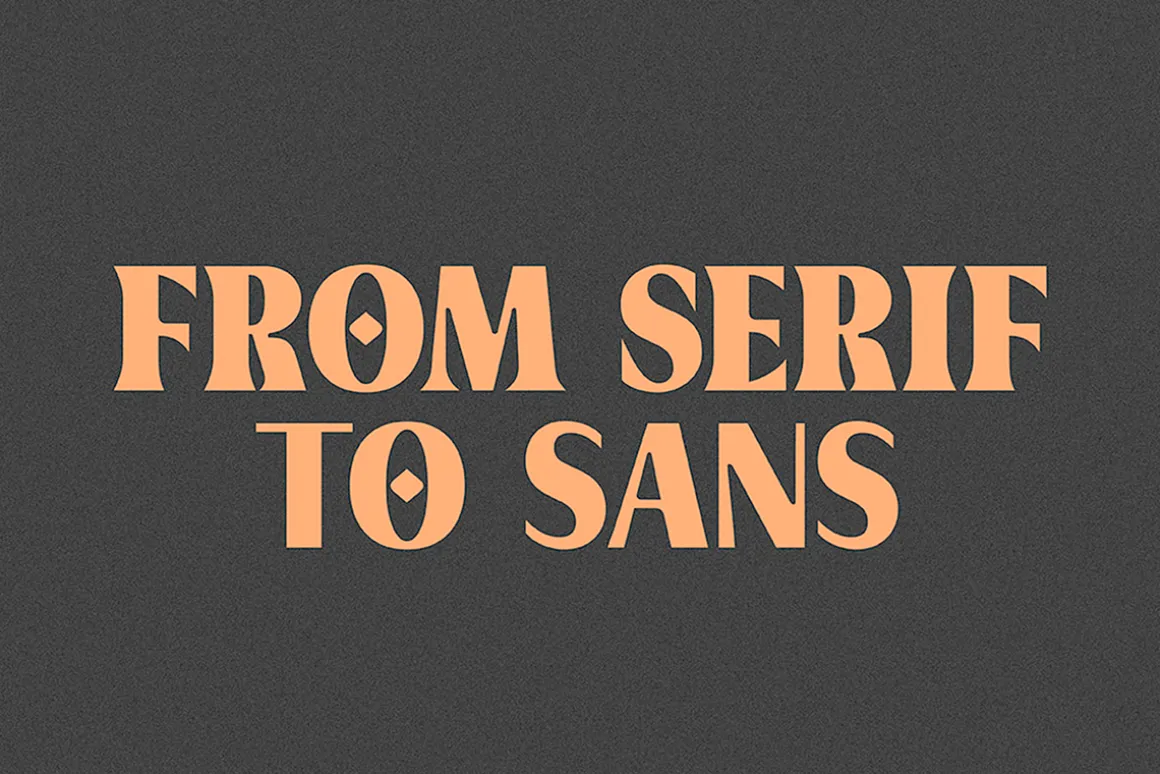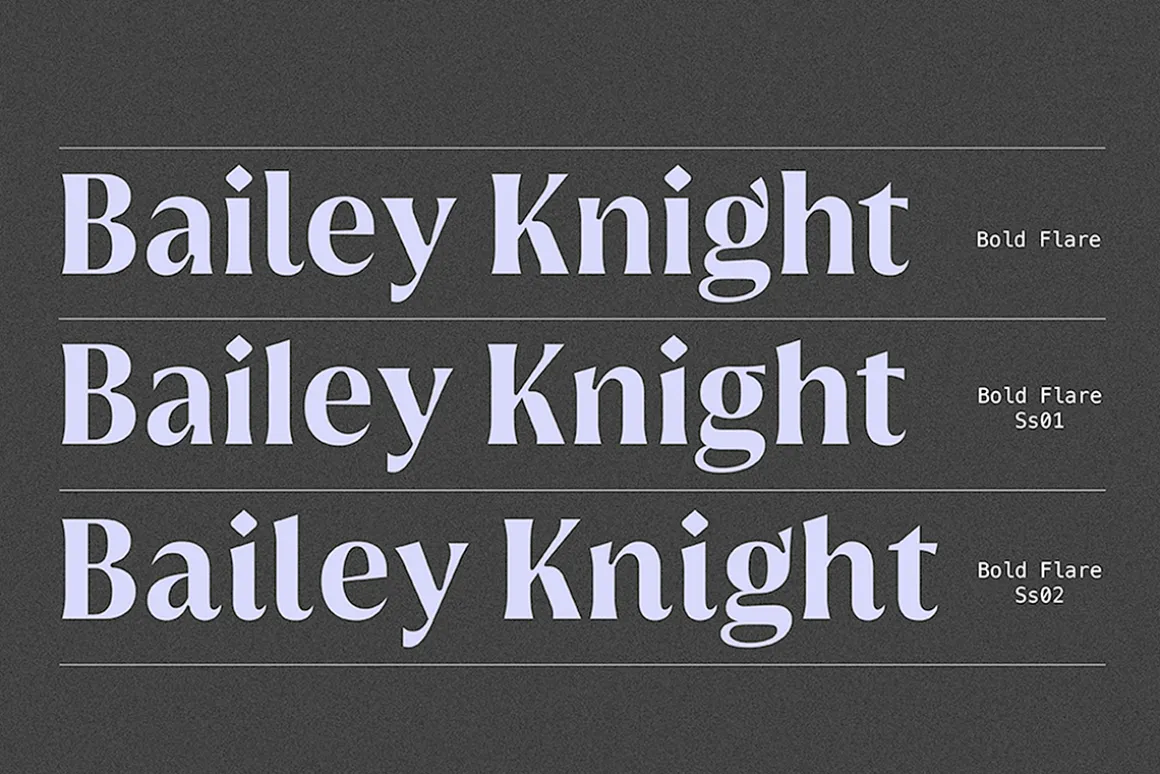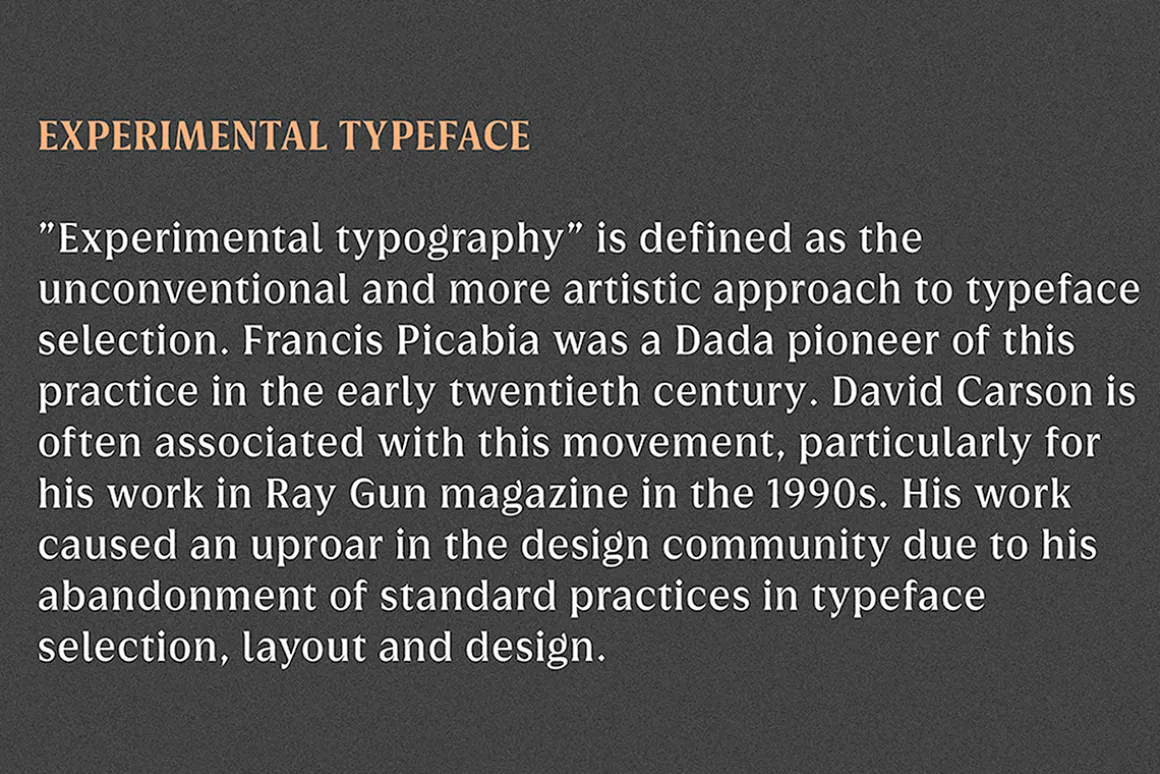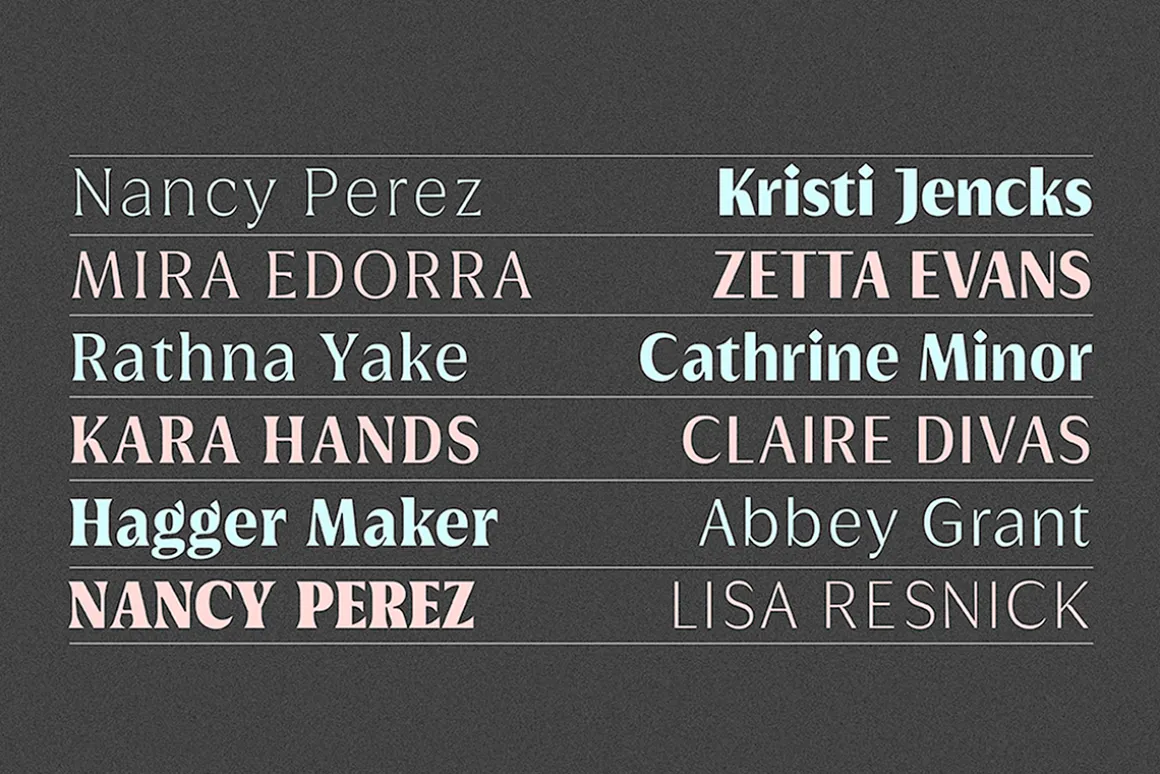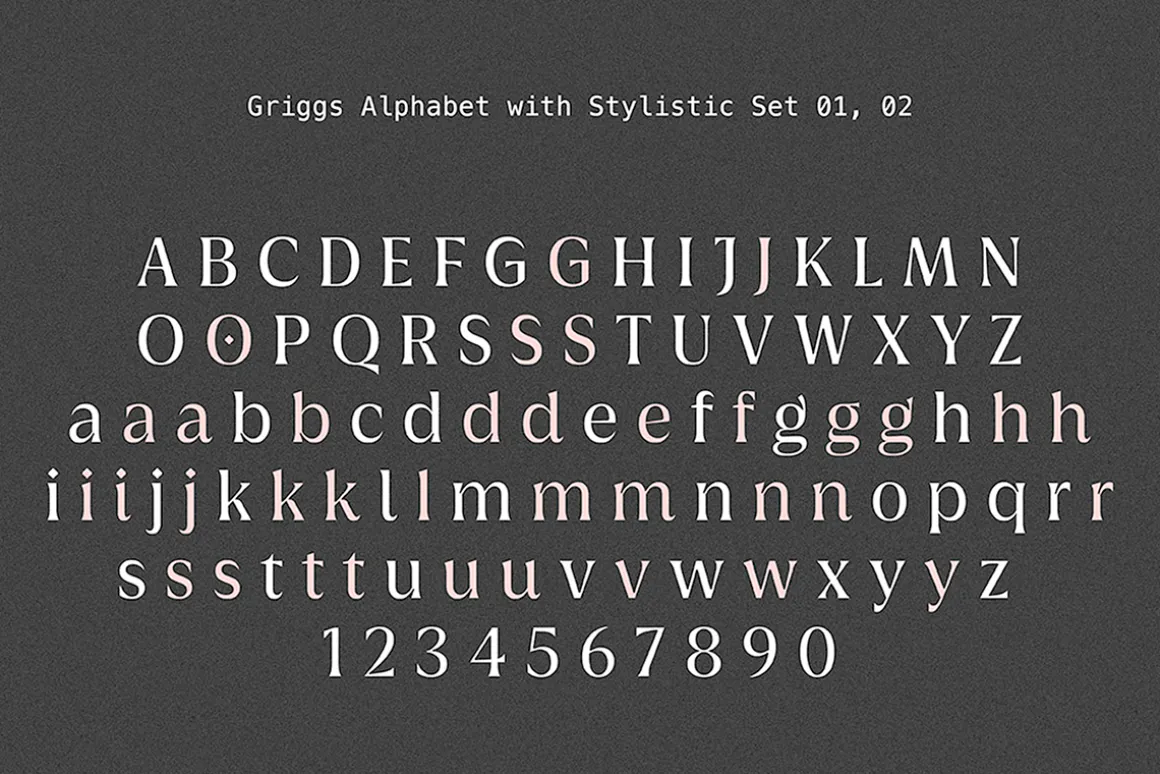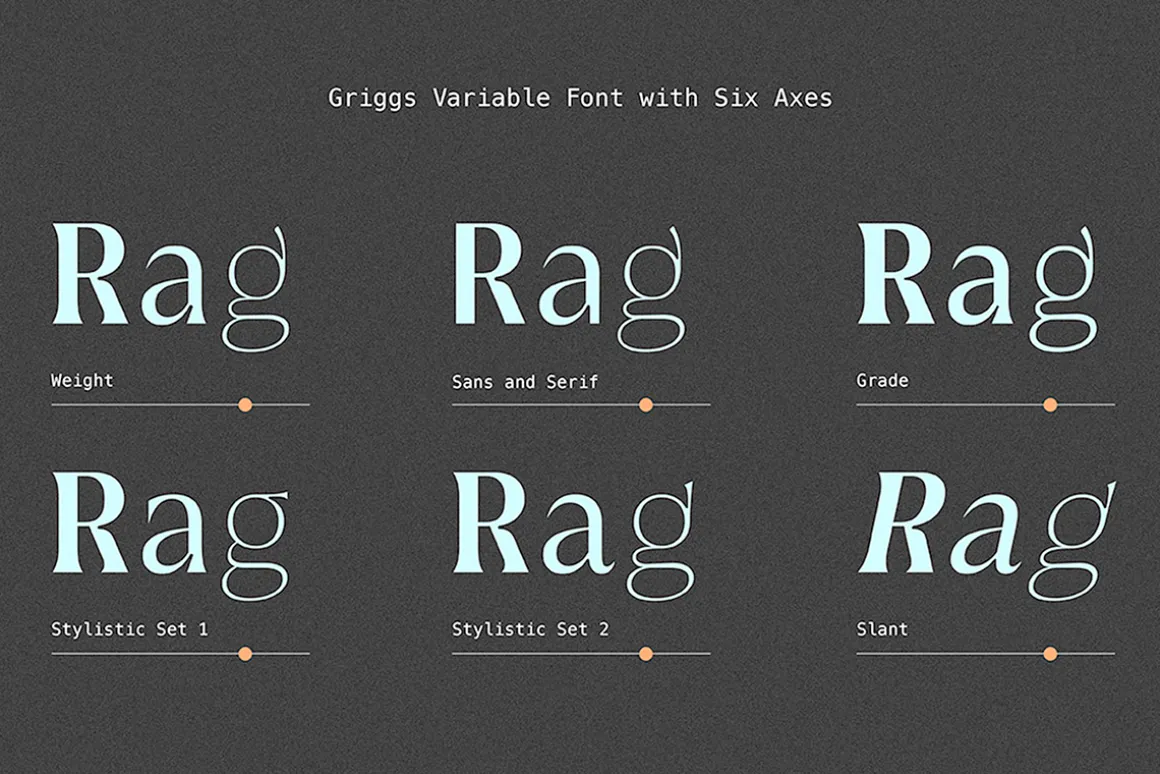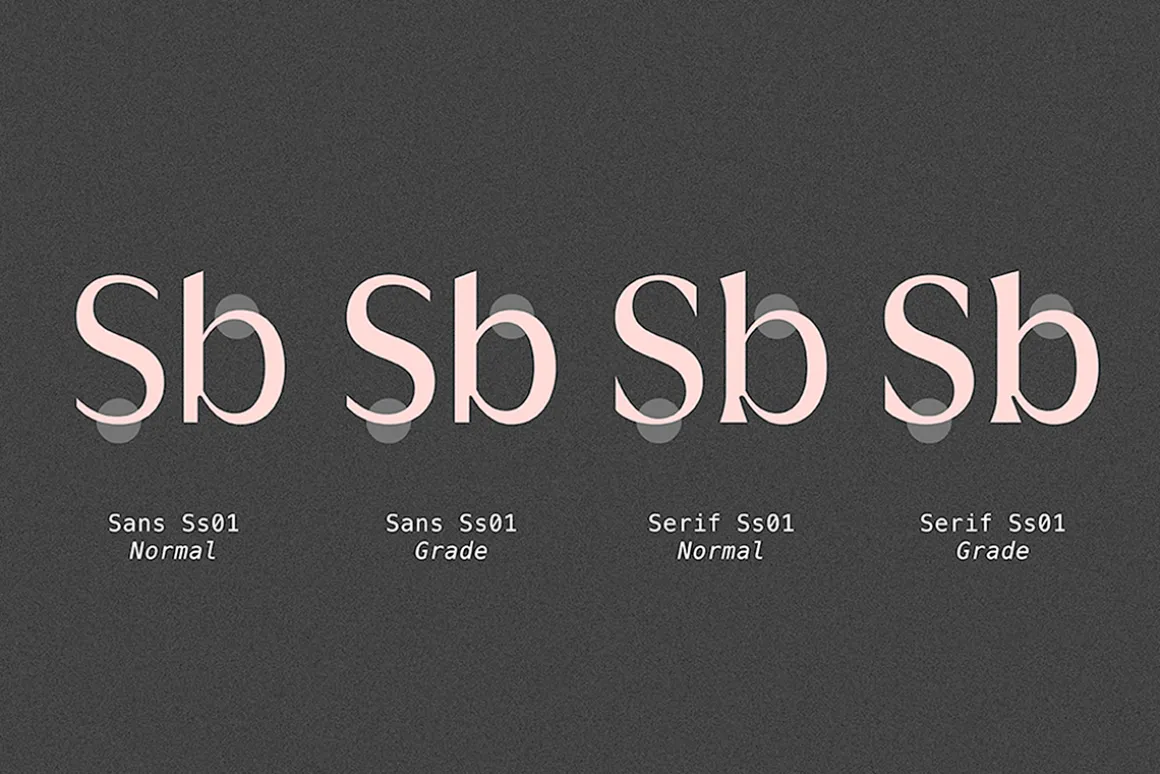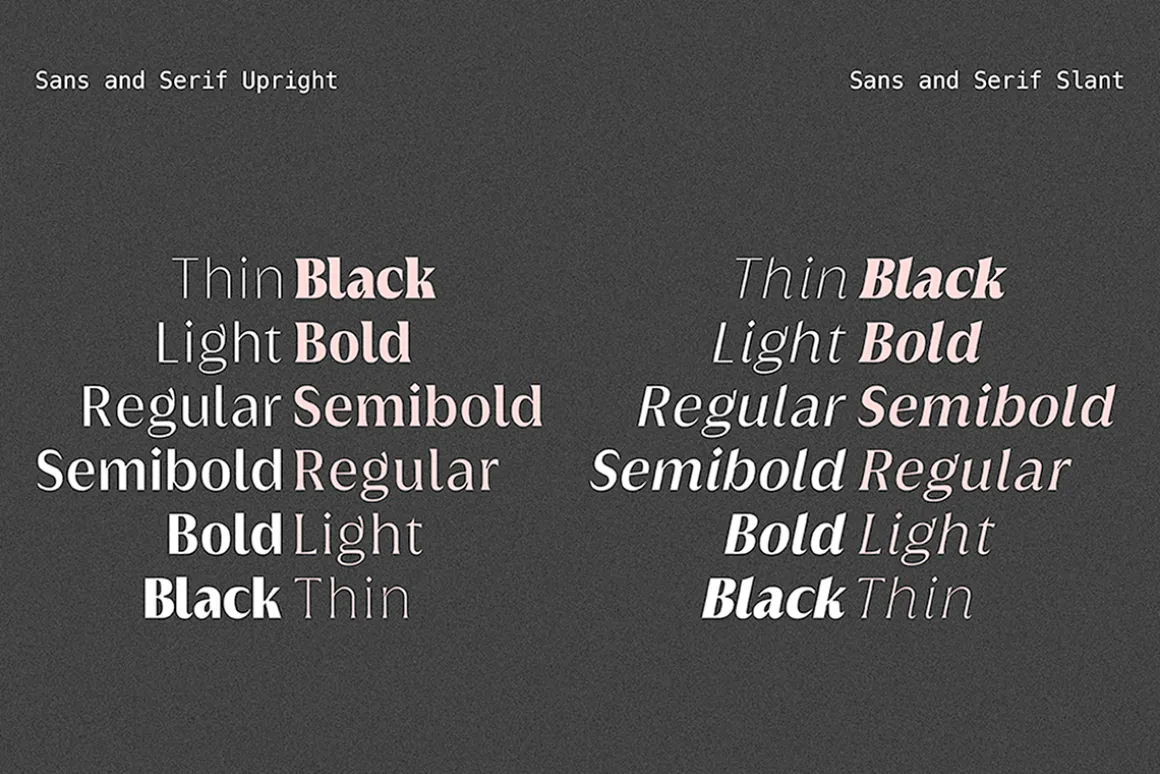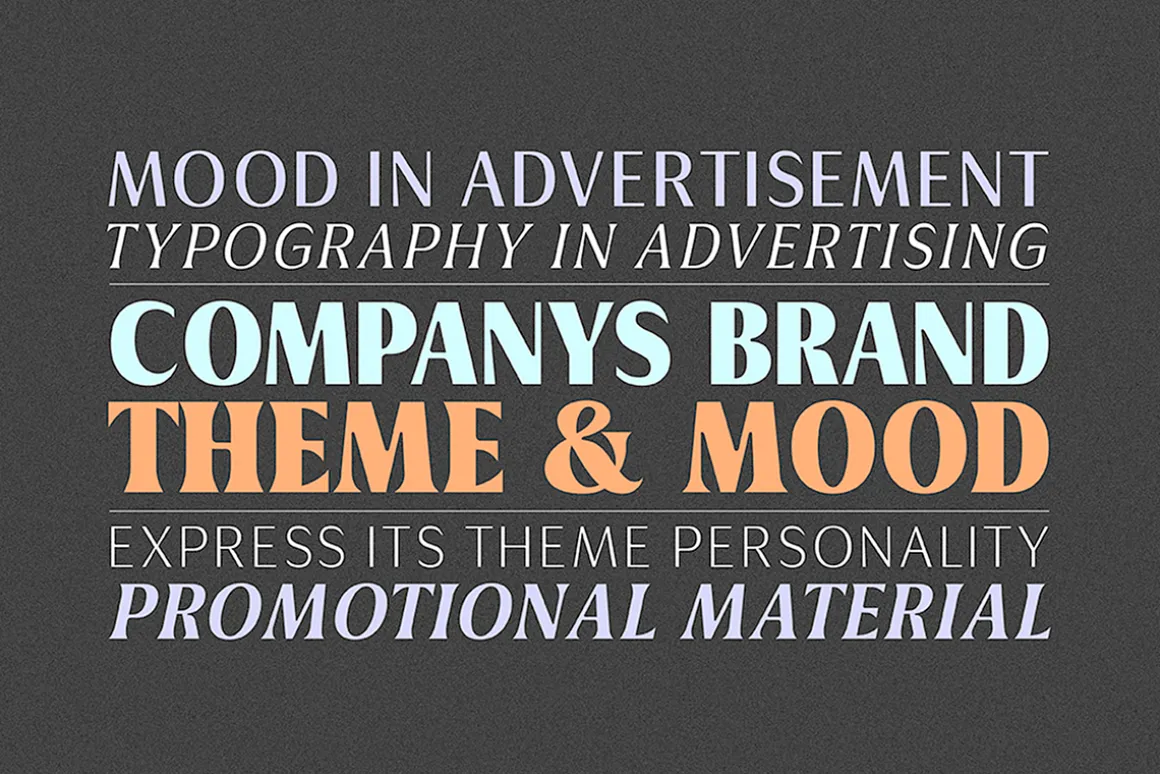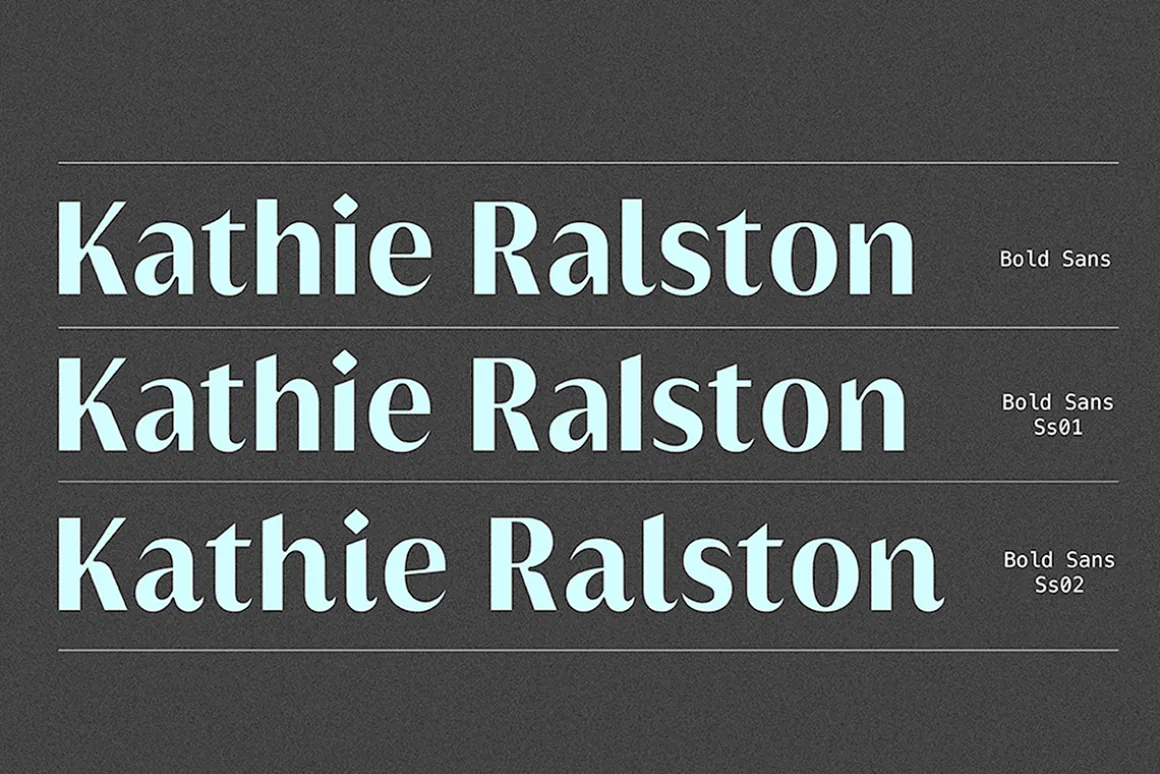
Subfamilies: Sans, Flare, Serif and Variable.
Griggs is a variable type family with six-axis. Available as both static and variable font built to maximize versatility. This is a single variable font that can morph between a wide range of stylistic variations with each of its axes: Weight, Serif, Grade, Stylistic Set 1, Stylistic Set 2 and Slant. Also offer a variable subtle grade axis for slight weight adjustments, to user different preferences. For slant axis will automatically apply stylistic set 2 or set custom values on each axes for more options. A multi-purpose sans serif and serif typeface with high contrast, inktraps, sharp form, clean cuts and playful details, to convey the impression of opulence, elegance with a distinctive look. It comes in 3 distinct individual cuts within the Sans, Flare, and Serif subfamilies. Allows for many variations across its subfamilies, weights and styles. Each typeface contains with a warm personality and contemporary look. With different stylistic sets, you can choose the best-desired result for your design. You can change the feel of your design from more delicate, to bold to its sharpest most style. Griggs family with various styles will be an handy tool for a wide variety of designs. Excellent for text large and small. It’s a brilliant choicefor branding, identity design, editorial design, logo design, display and packaging design etc.
Typeface Features:
- 325 Glyphs
- 3 Subfamilies: Sans, Flare, Serif ( Each 8 Styles + Slant )
- 6 Weight: Thin, Light, Regular, Semi Bold, Bold, Black
- Complete Collection: 144 Styles + Variable Font
- Opentype Features: Stylistic Set 1, Stylistic Set 2
- Latin Language support including
- Kerning
- Autohinted